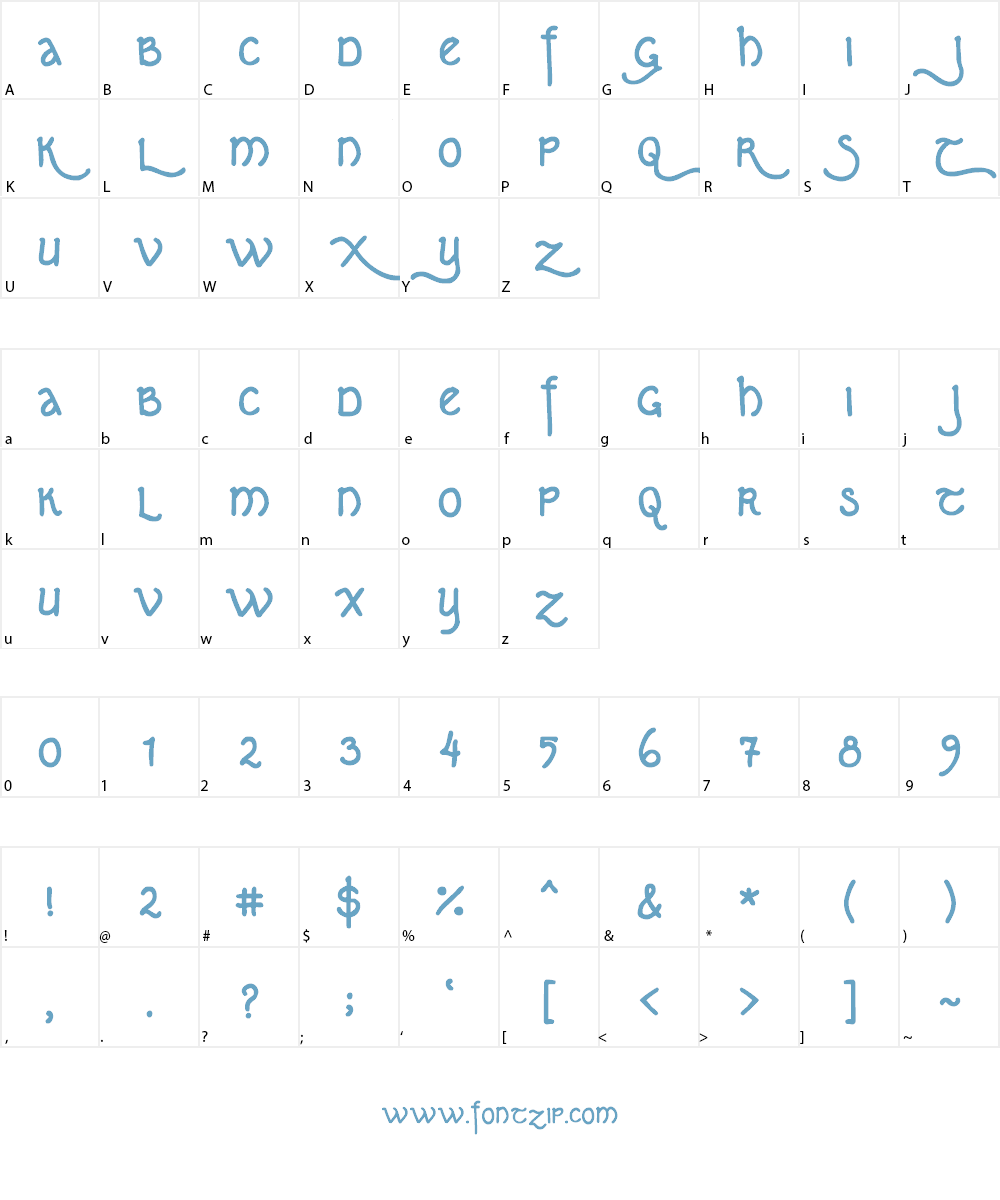
Kipferln is an olde looking font doodled out by my sweetheart. It has a full international character set, including several ligatures and a whole passel of accents. Version 1.7 is hand-kerned, which helps the swoopy characters play well together.